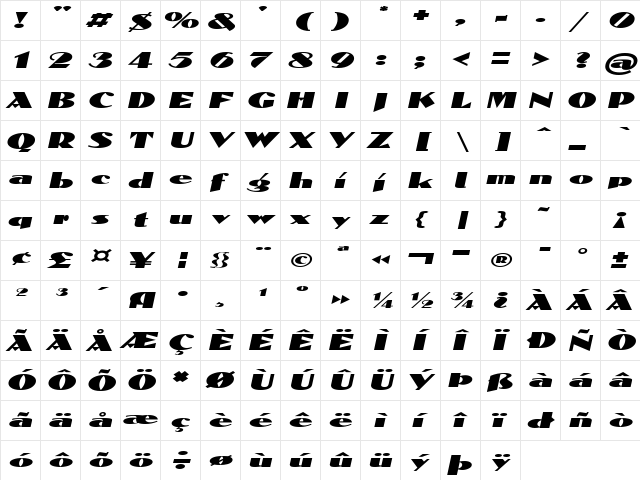
DomenicExtended Oblique Font Preview
DomenicExtended Oblique
Design Context for DomenicExtended Typeface
DomenicExtended offers clean, dependable letterforms without strong stylistic allegiance, making it a practical choice for designers who need flexibility. The dynamic lean of this cut emphasises speed and emphasis in any layout.
Pro Tip: Use DomenicExtended for emphasis, pull quotes, and subheadings where its slanted energy can add rhythm to the layout.